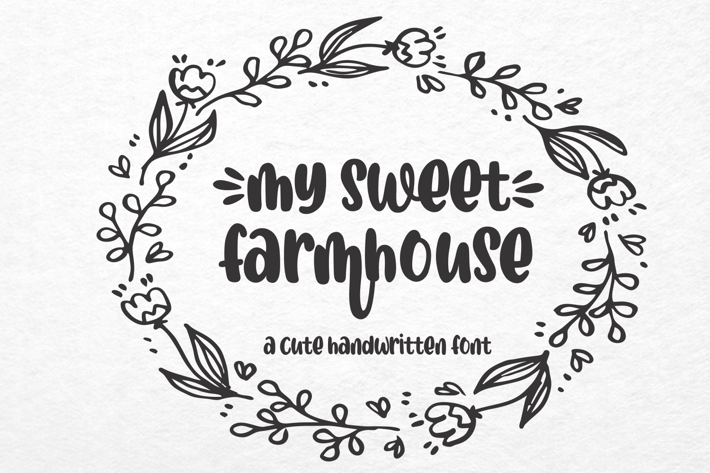
My Sweet Farmhouse - Crafty Font
Embrace the Charm of My Sweet Farmhouse - Crafty Font!
Introducing My Sweet Farmhouse - Crafty Font, the perfect font for adding a touch of rustic elegance to your designs. Ideal for spring, summer, farmhouse, Easter, Cricut, embroidery, Thanksgiving, craft, Christmas, lettering, and SVG projects, this font brings a cozy and inviting feel to any creation. The script style features beautiful beginning and ending washes tails on each character, adding a unique flair to your work.
Let My Sweet Farmhouse - Crafty Font inspire your creativity. Whether you're designing charming holiday cards, crafting delightful home decor, or adding a handmade touch to your projects, this font is your go-to choice. Its PUA Encoding ensures easy access to alternate characters, making customization simple and enjoyable.